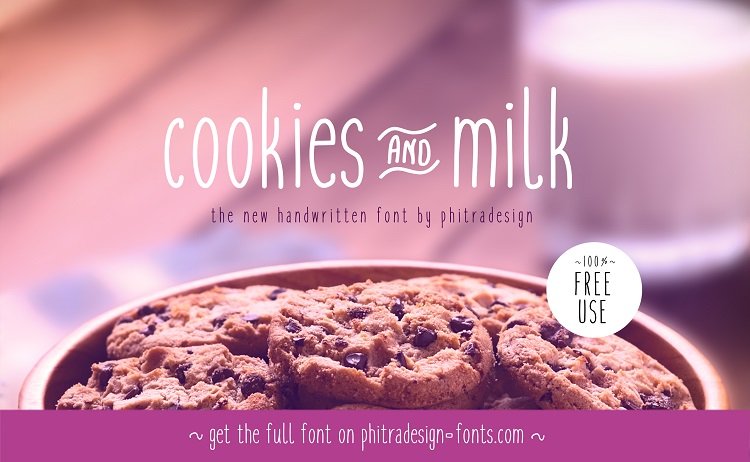
Cookies and milk Font
enjoy this natural and tidy handwritten font and use it for anything you like. (It is 100% free) But if you’d like to support me and get numbers, language support, all symbols, bold and extra bold font files you can get the full version here for just 9,99$